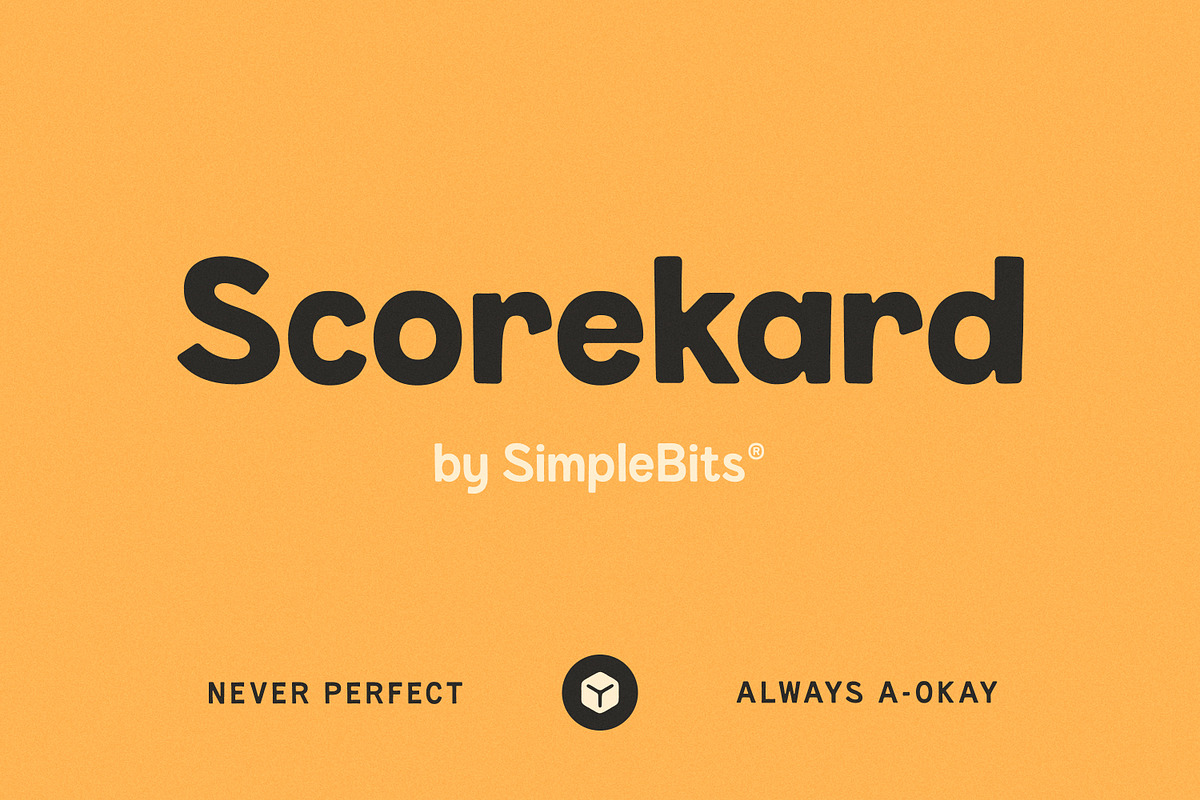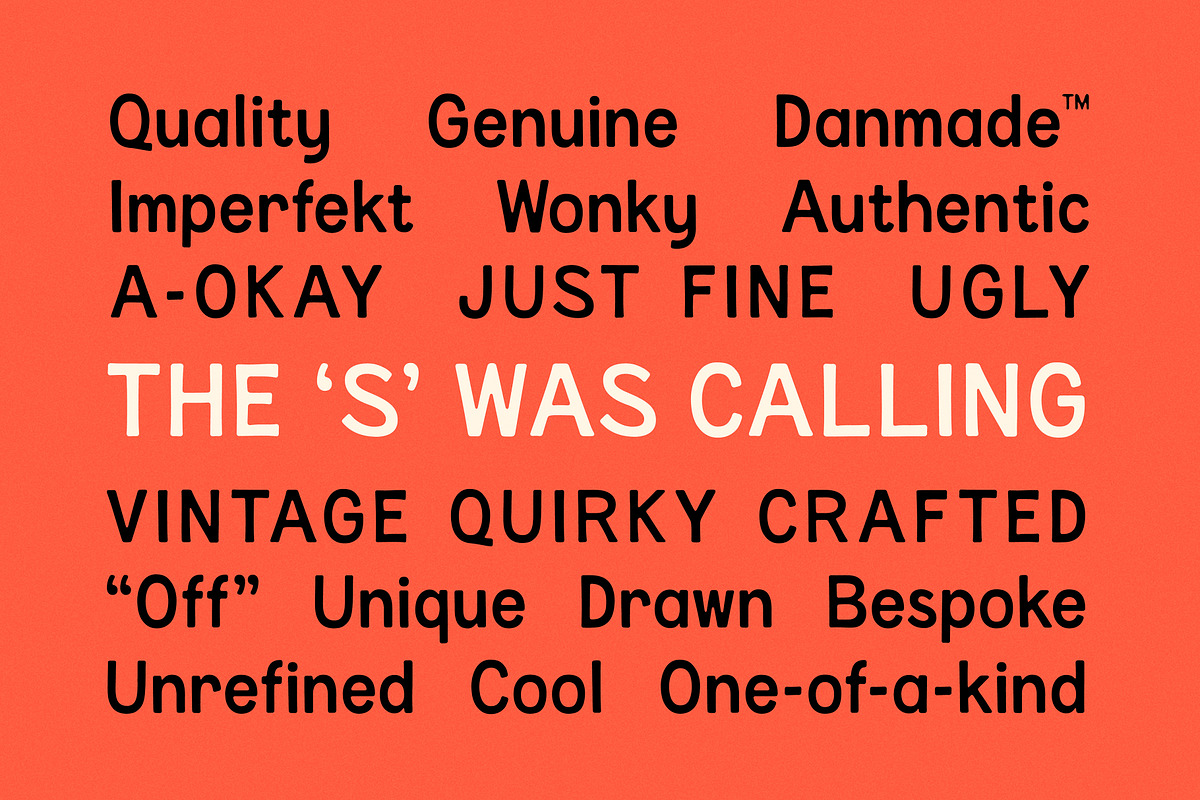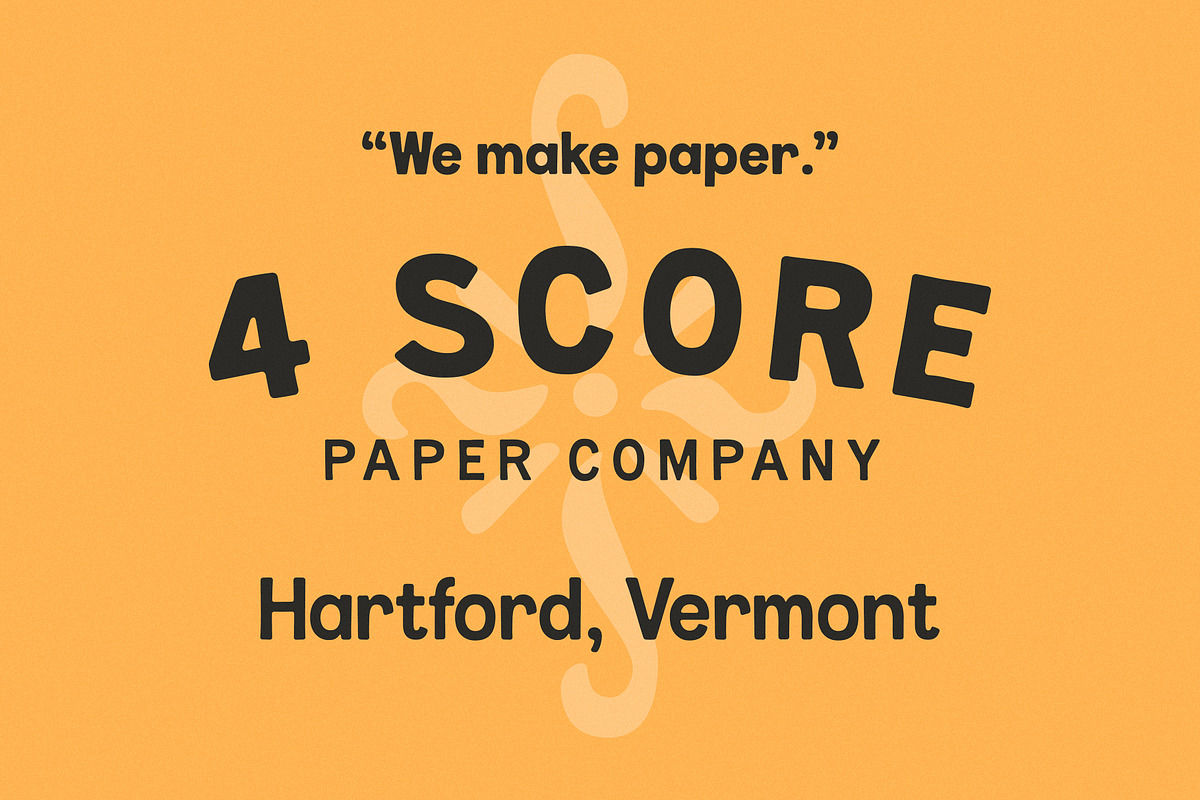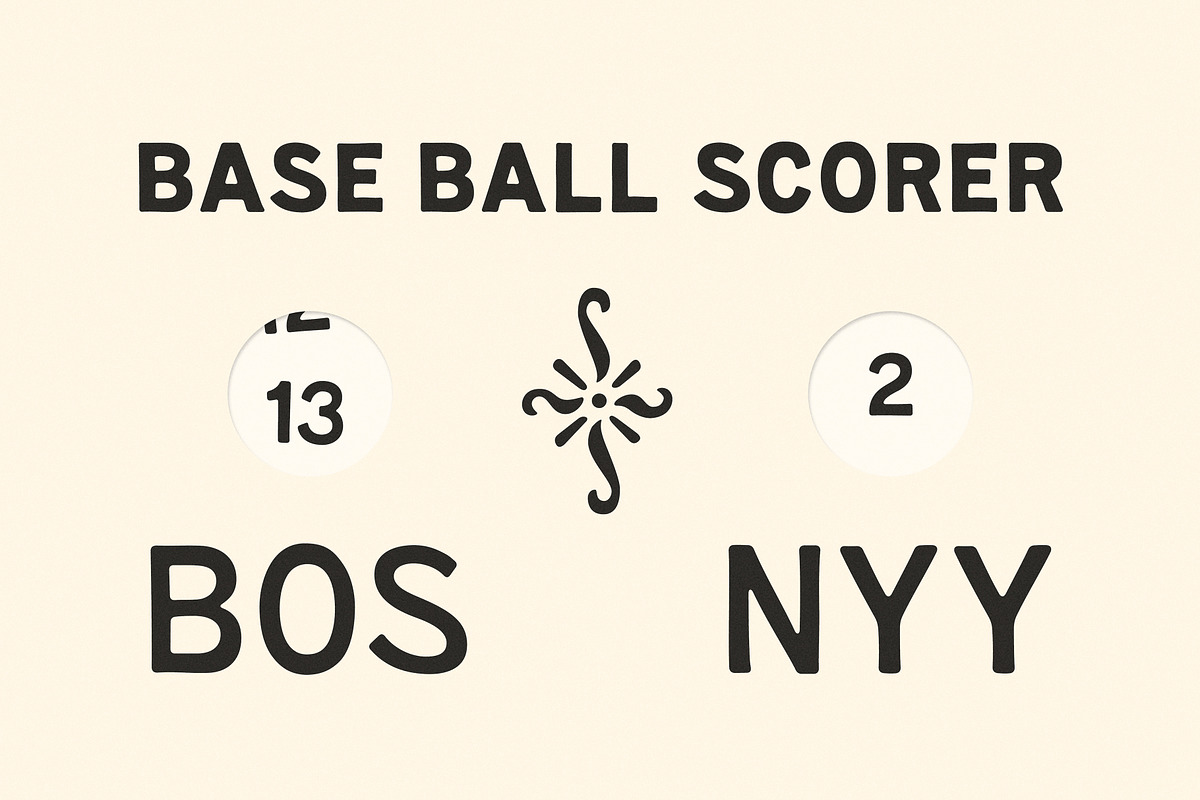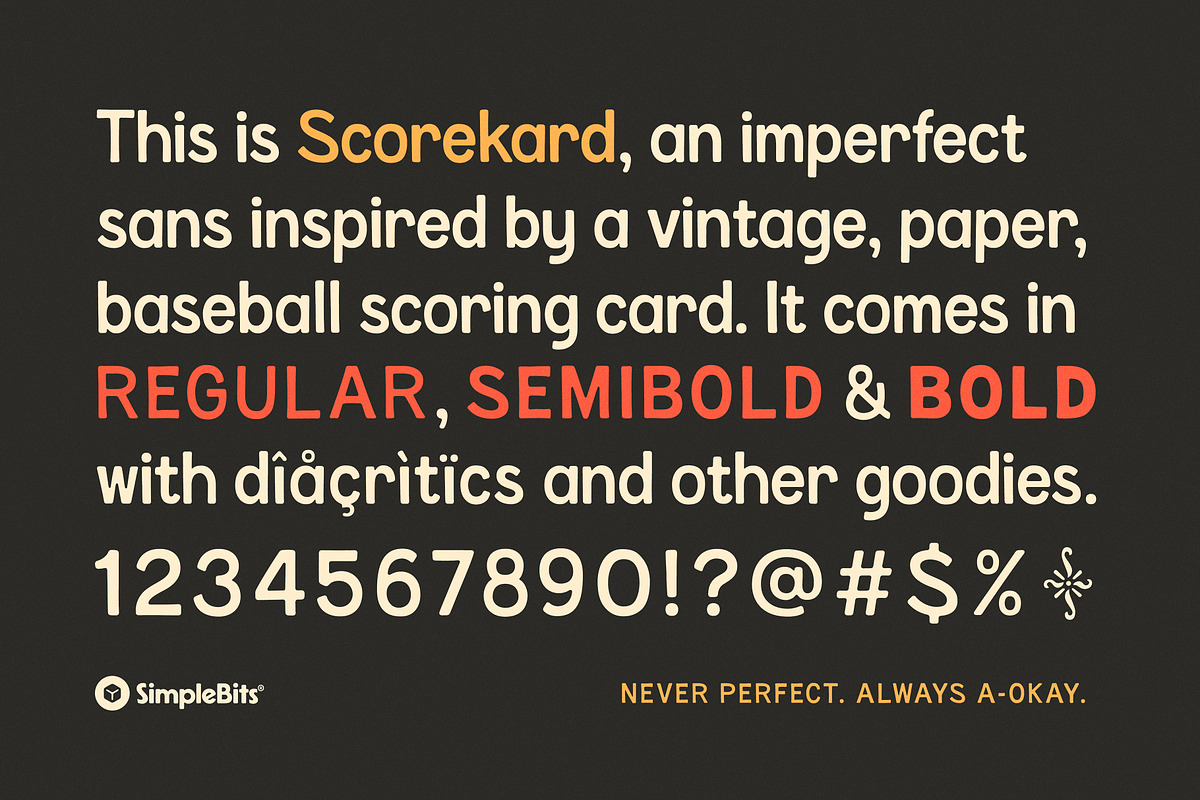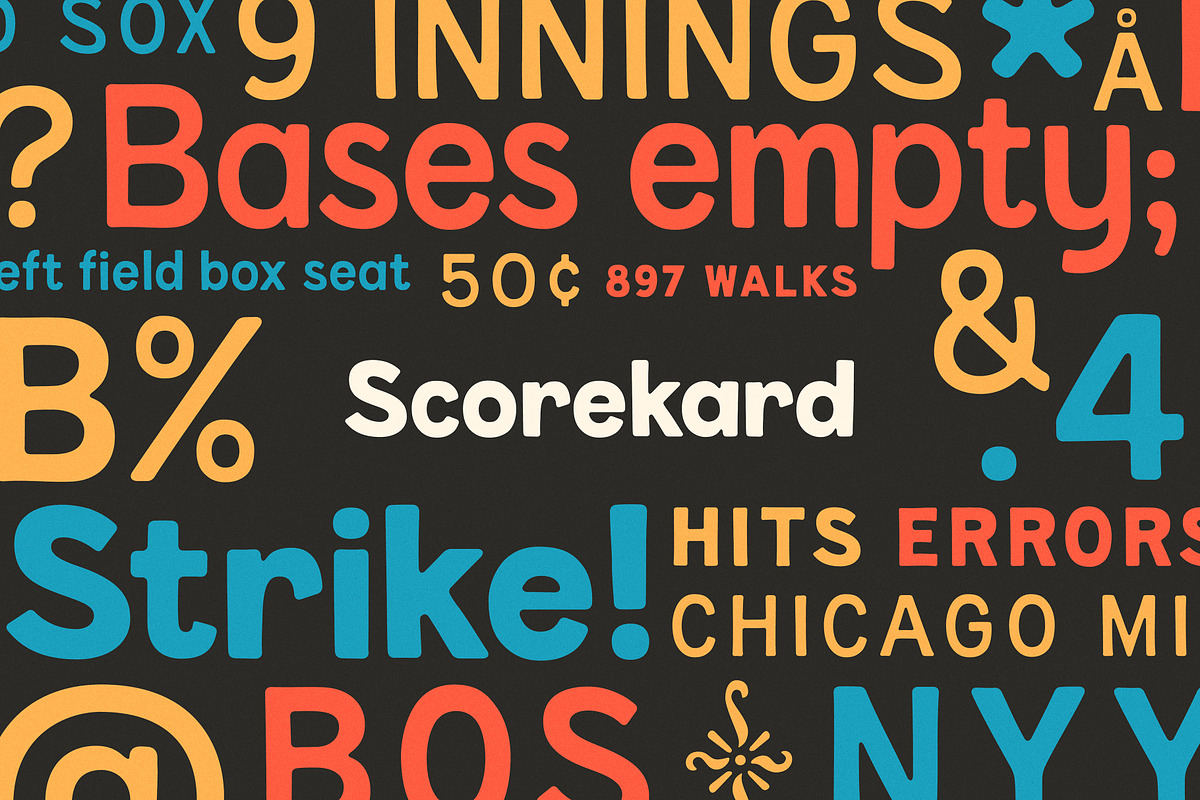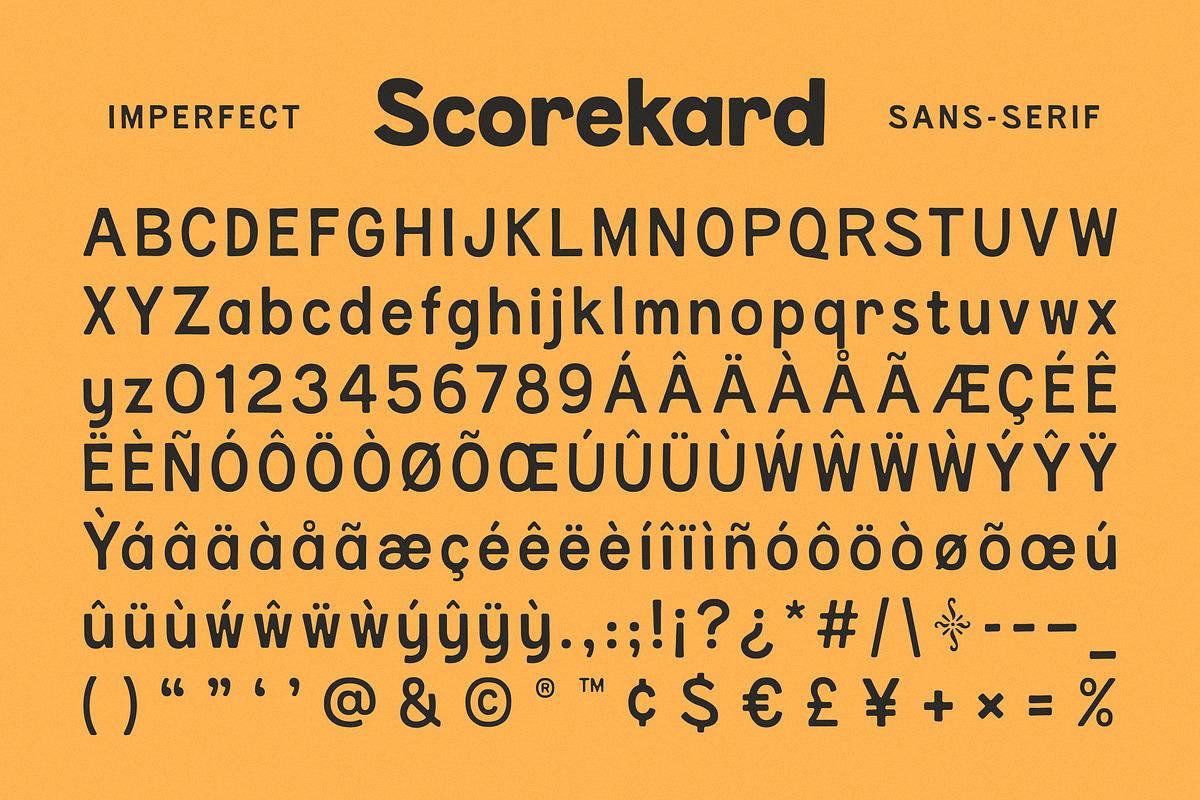
Scorekard — An imperfect sans
Scorekard is an imperfect sans-serif inspired by the lettering on a vintage, paper, baseball scoring card made by the Dennison Manufacturing Company in Massachusetts. Like many of my other typefaces, it starts with a handful of letters and quickly balloons into an all-caps alphabet, numbers, punctuation, etc.
This time it felt right to interpret those original Dennison letters into a full lowercase alphabet as well—and in three weights: Regular, Semibold, and Bold. I also added some decent Latin language support by way of diacritics and some other glyphs. Notably, recreating the swashy ornament found on the original card as an alternate character for the asterisk.
Scorekard is intentionally quirky, with Danmade™ line wandering and friendly, inky, roundness. It's got character—but not too much that would limit its useful-ness. Scorekard is a display sans that'll work hard for you.